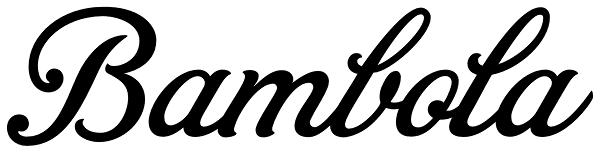
Bambola
BAMBOLA, Script put out by EdyType. Almost formal script, that gained a little weight. but she is taking care of that. BAMBOLA, a real doll, wants to be loved, she is trying hard to be popular. Is very conscious of her beauty, but trying not to be a...